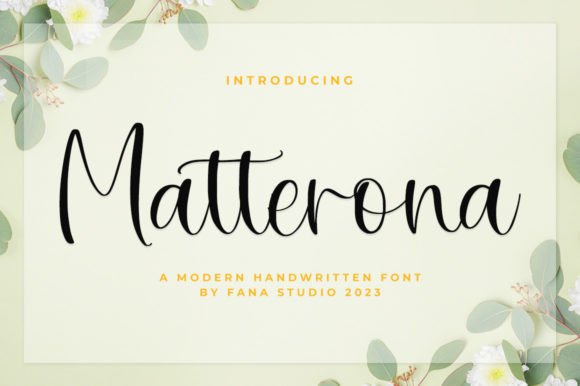
Welcome to the world of Matterona Script, a captivating script font family designed to evoke elegance and charm. With its sweeping curves, delicate strokes, and graceful lines, Matterona Script is a visual masterpiece that will add a touch of sophistication to any design project.
Immerse yourself in the beauty of Matterona Script, a font family that embodies the essence of timeless aesthetics. Each letter is meticulously crafted to exude a sense of fluidity and movement, creating a visual symphony that captures the eye and captivates the senses.
Step into a realm of creativity and design possibilities with Matterona Script. Whether you're crafting logos, designing wedding invitations, creating social media posts, or simply adding a personal touch to your photography, Matterona Script is the perfect choice. Its versatility knows no bounds, allowing you to infuse any project with a touch of sophistication and elegance.
Let Matterona Script be your creative companion, guiding you on a journey of self-expression. Its sweeping curves and delicate strokes will elevate your designs to new heights, leaving a lasting impression on your audience.
So, embrace the allure of Matterona Script and embark on a creative journey that knows no limits. Let your imagination soar, and let Matterona Script be the muse that brings your design visions to life.